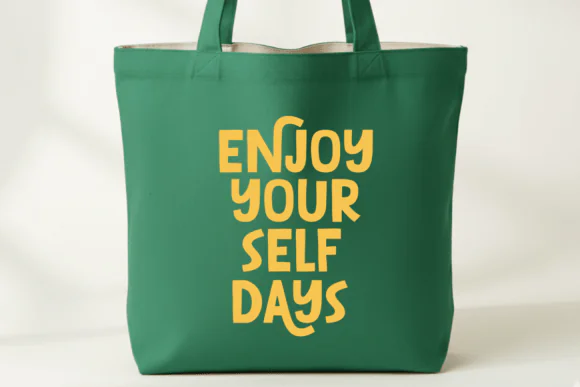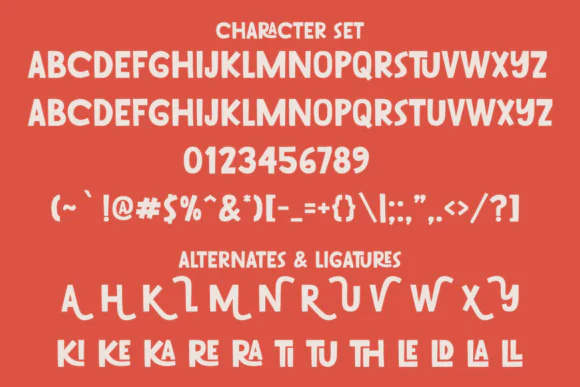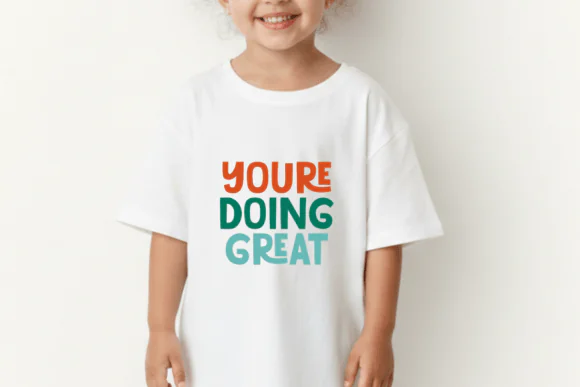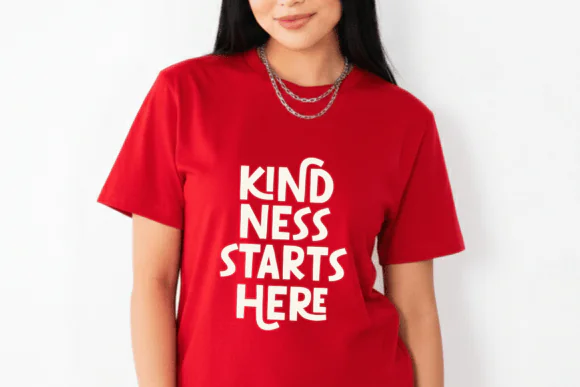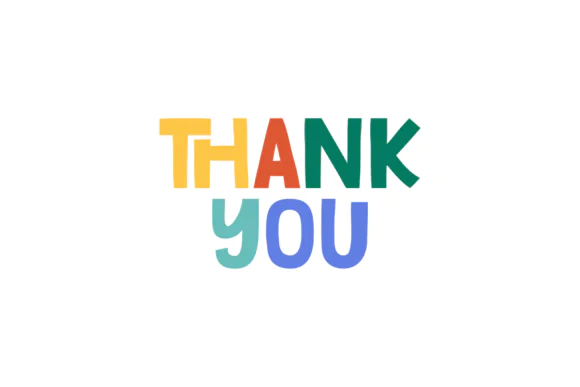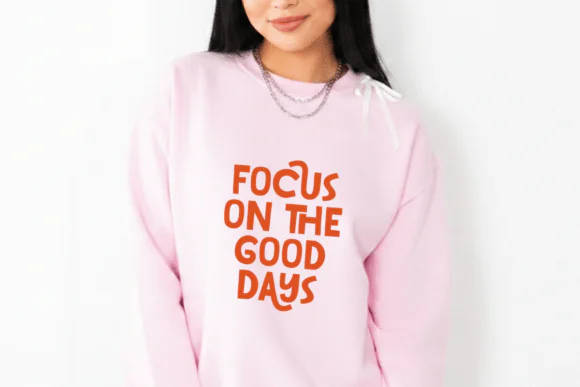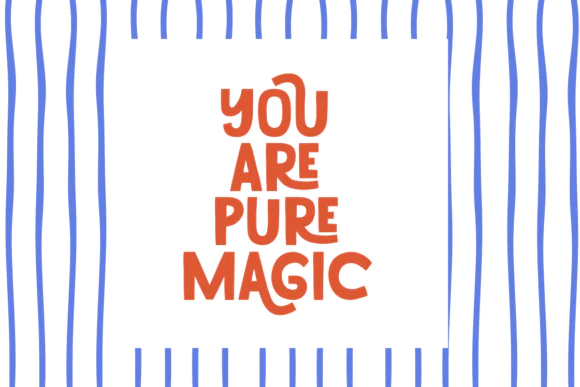
Playful Children Handcrafted Font – Fun Kids Typeface for Kindergarten Branding, Daycare Logos, Toy Shops, Baby Apparel, Educational Posters, Snack Packaging, Birthday Gifts & Children’s Designs
Bring joy, imagination, and childlike creativity into your designs with Playful Children Font, an elegantly handcrafted typeface inspired by the vibrant and playful world of kids. With organic shapes, artistic strokes, and a lively handmade feel, this font adds a fun and friendly personality to every creative project.
Playful Children Font is perfect for kindergarten branding, daycare logos, toy shop designs, baby apparel lines, learning module covers, instructional posters, classroom materials, snack wrappers, milk cartons, birthday gift packaging, greeting cards, birthday wishes, children’s room wall decals, t-shirt designs, mugs, keychains, stickers, and playful digital graphics. Its cheerful character makes it especially useful for designs that need to feel welcoming, youthful, imaginative, and full of energy.
Whether you are creating educational materials, kids product packaging, nursery wall art, birthday party designs, children’s merchandise, or cute brand visuals, this font helps your message feel warm, memorable, and irresistibly fun. It is a great choice for teachers, crafters, designers, daycare owners, toy brands, children’s apparel sellers, print-on-demand creators, and digital product designers who want a playful font with a handcrafted creative touch.
Kindergarten branding, daycare logos, toy stores, baby apparel, children’s clothing, educational posters, learning modules, classroom materials, snack wrappers, milk cartons, birthday gift packaging, greeting cards, birthday wishes, wall decals, t-shirts, mugs, keychains, stickers, kids crafts, and playful printable designs.
Key Features
• Elegantly handcrafted children’s font style
• Organic forms with artistic playful strokes
• Bright, cheerful, and kid-friendly personality
• Great for branding, logos, and educational designs
• Perfect for packaging, apparel, gifts, and wall decals
• Adds imagination, joy, and creativity to typography
• Suitable for digital, print, craft, and merchandise projects